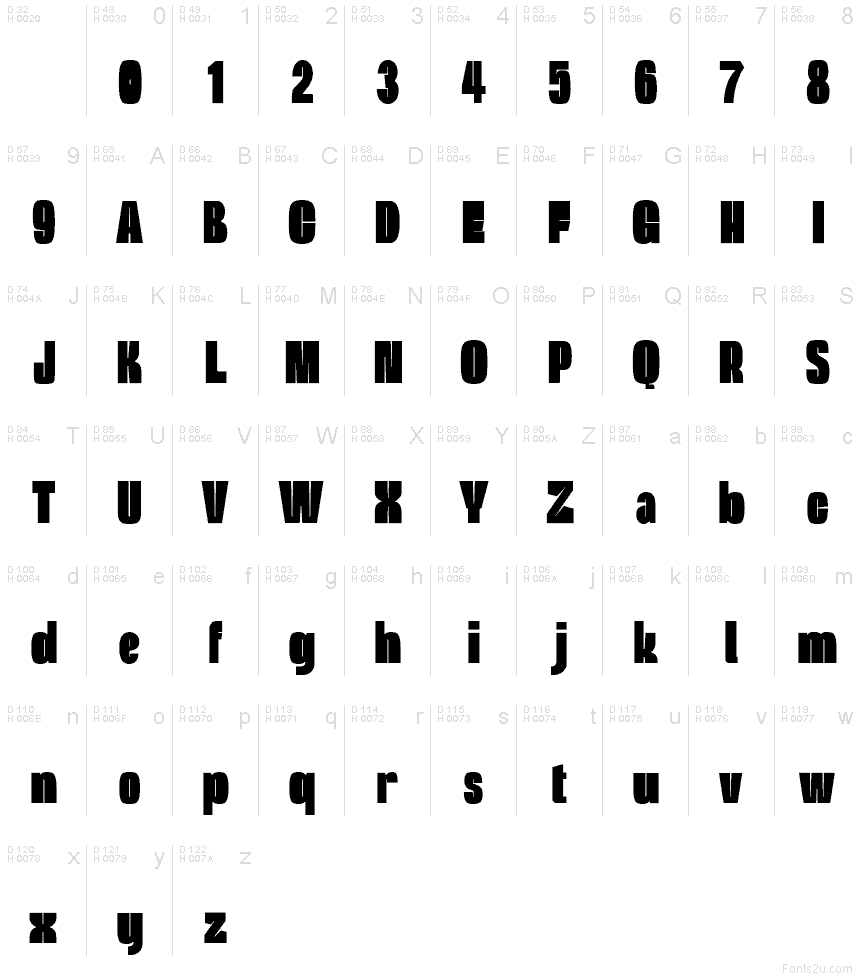
Palmegandia Personal Use Regular
Palmegandia font from Ibra Creative Studio is a condensed sans serif font with bold characters. This new typeface features soft geometric shapes not commonly found in the average handwritten fonts. Its bold and sleek letters read well both in small print and headlines. The font offers lowercase, uppercase letters, numbers, punctuations, and more characters.
Palmegandia is the perfect free sans typeface for designing posters, packaging designs, invitations cards, magazine covers/titles, social media posts/covers/stories; book pages; luxury product branding labels; wedding designs; or even mockups of any kind.